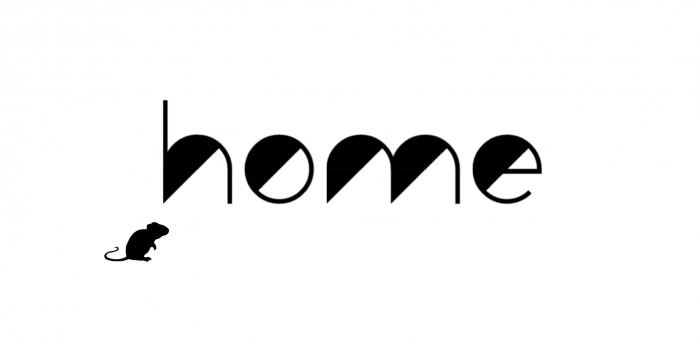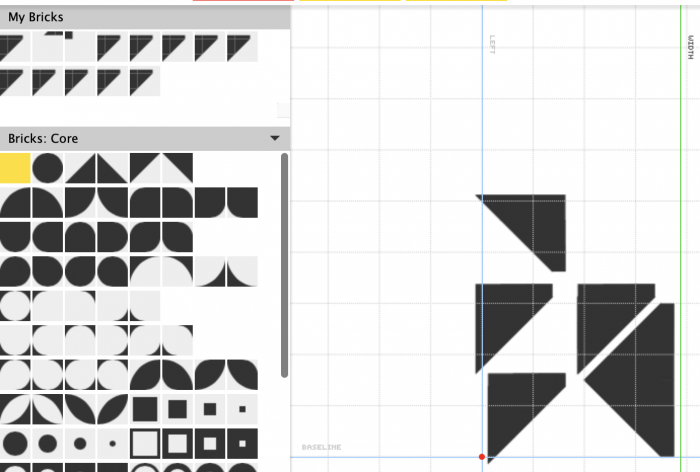
I do think some pairs need a little extra kerning modifications.
fo and fi for example is too tight right now, whereas ox could be closer, s in combination with many other characters is too spacious right now as well. ;)
This looks pretty damn awesome too mate!
I do think some pairs need a little extra kerning modifications.
fo and fi for example is too tight right now, whereas ox could be closer, s in combination with many other characters is too spacious right now as well. ;)
yeah, you're right. all my fonts here need proper kerning.
interesting
Looks like DB Tempo.